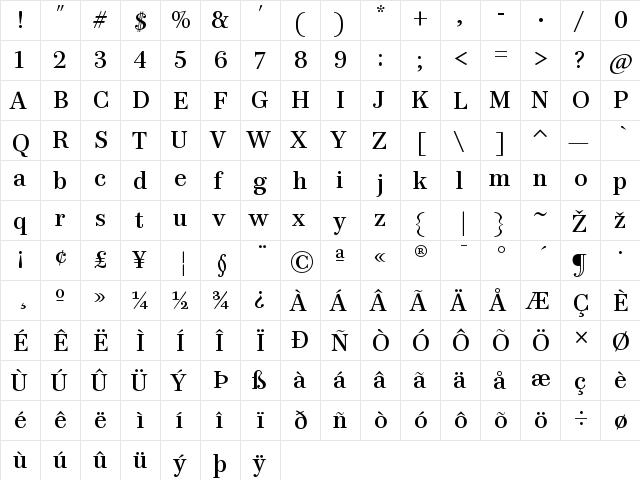
PB24TTP-Roman Regular
Design Context for PB24TTP-Roman Typeface
PB24TTP-Roman is a composed and adaptable typeface that performs quietly and consistently across a wide range of design contexts.